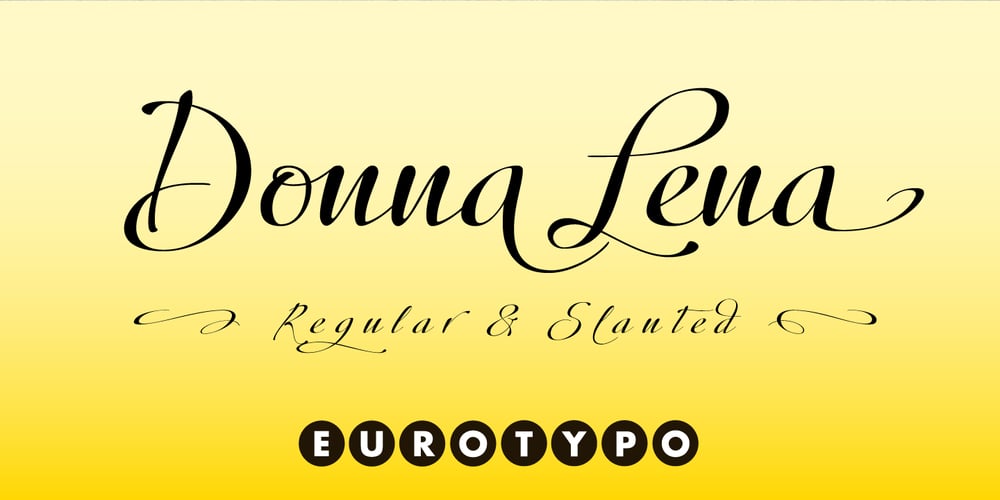
Donna Lena Font Family was designed by Alberto Pedro Di Santo and published by Eurotypo. Donna Lena contains 2 styles and family package options. Donna Lena is a chancery cursive, feminine in character. Elegant and timeless, this font marks the return of the classical canons of the Renaissance thanks to its open forms and the clear-cut ends, while recalls the graceful ways and the intense gaze of the ladies that populate the Florentine paintings in the sixteenth century. Donna Lena is soft and slightly inclined, with a fast ductus and marked contrasts in thickness to highlight the gesture. Different stylistic variations and ligatures are considered to make the most of the many OpenType features.